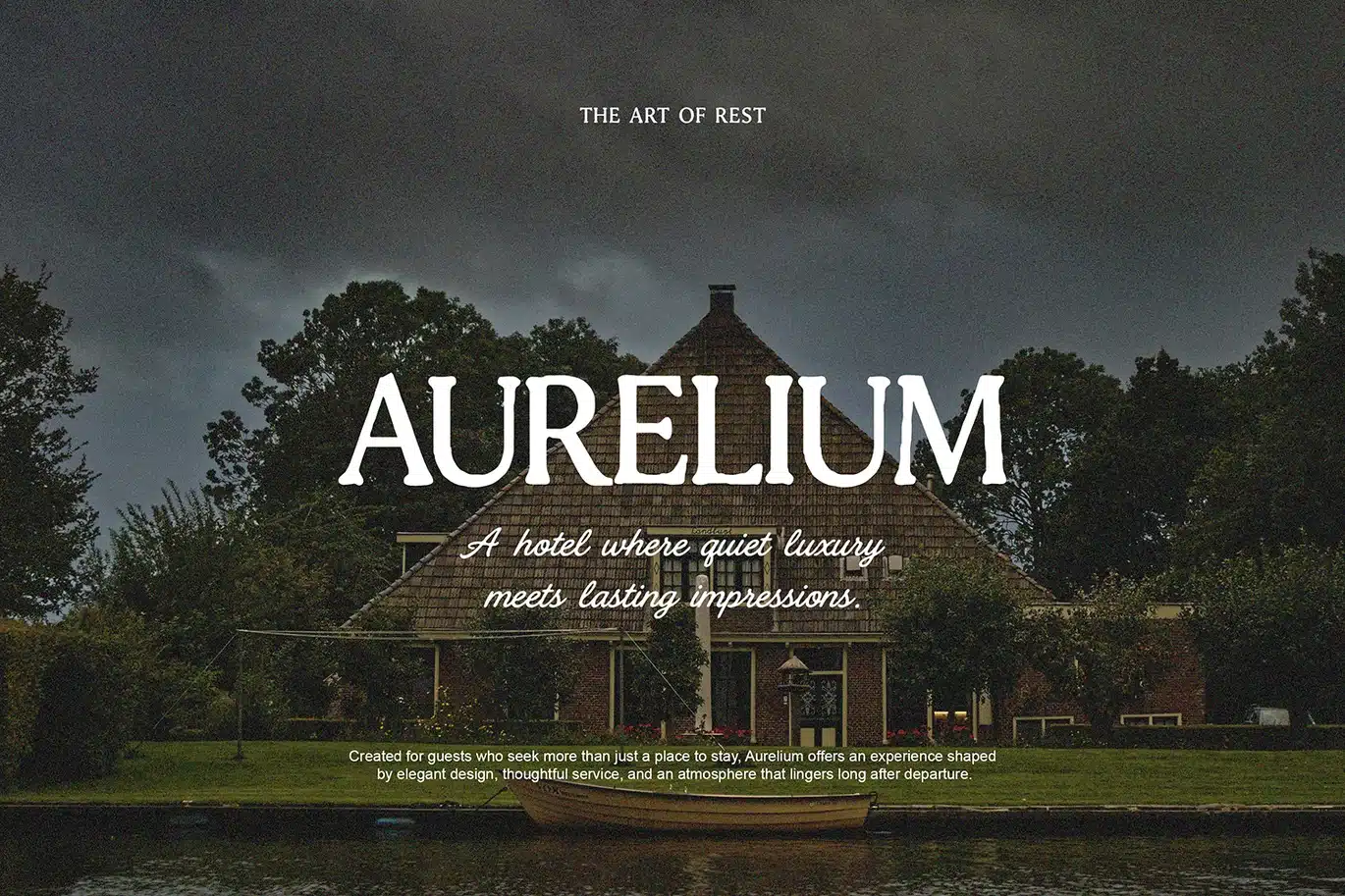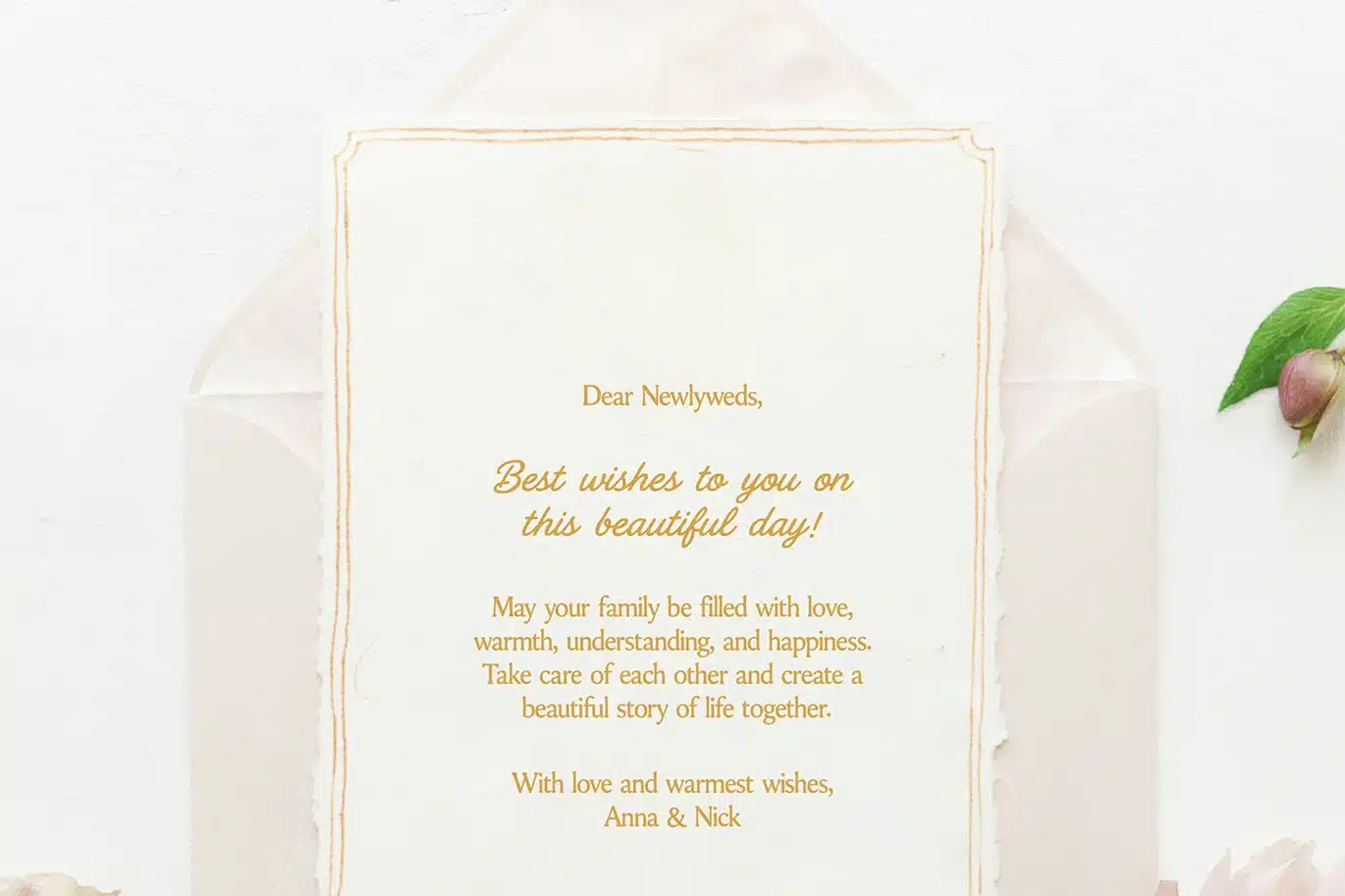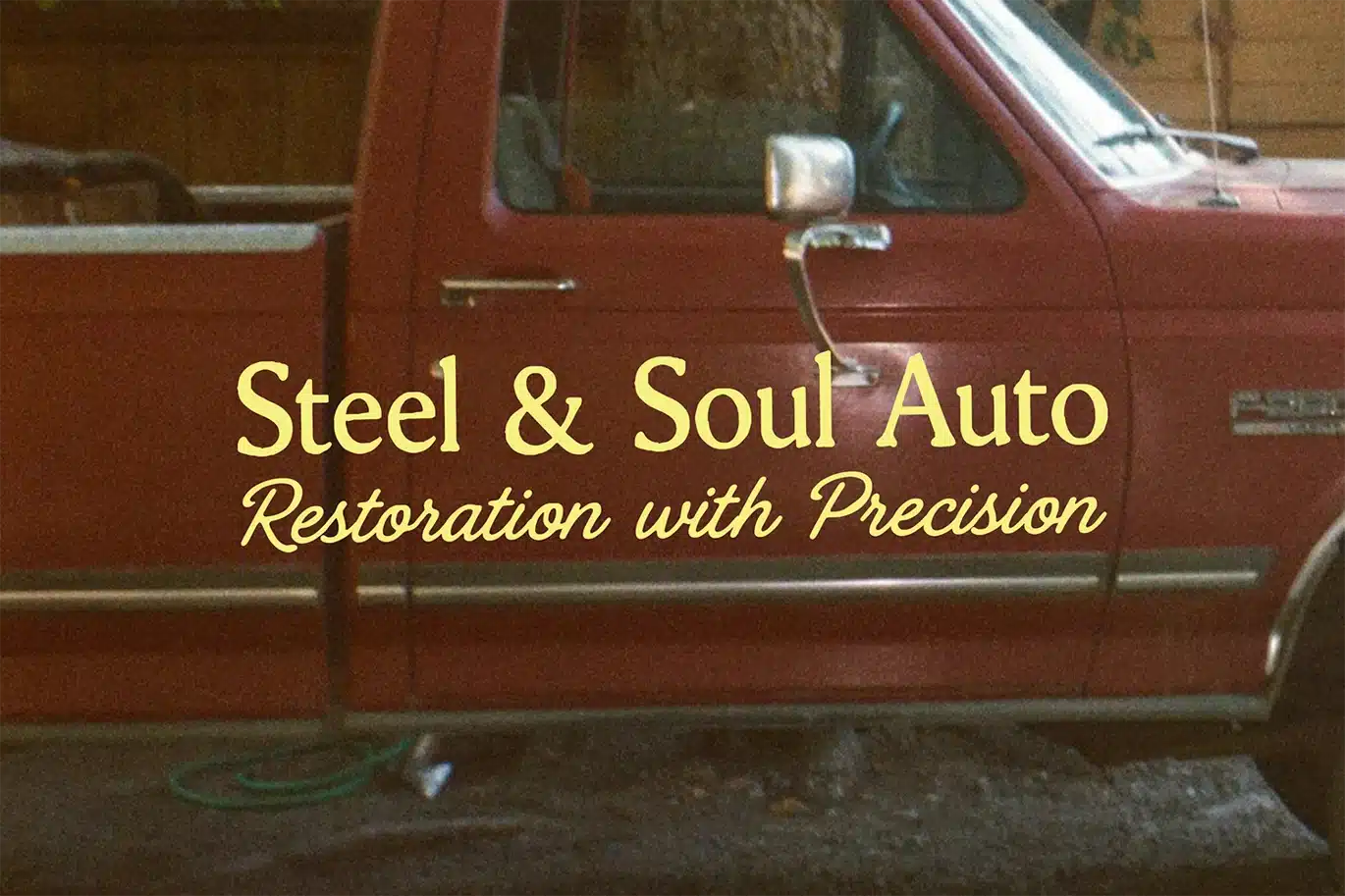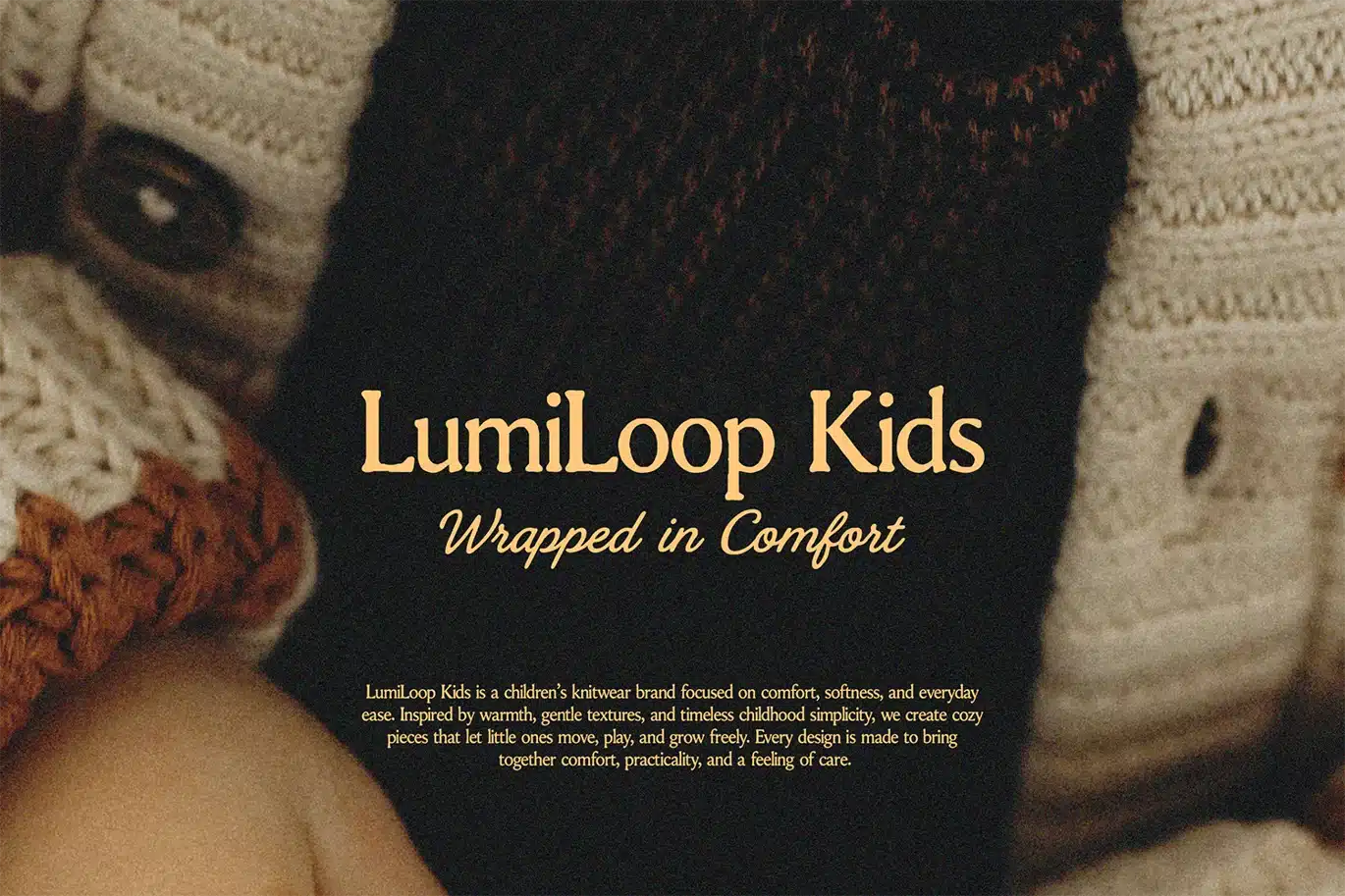
Serif Script Font Duo
European Farmhouse is a beautiful serif and script font duo with a timeless rustic charm. This font duo is ideal for designers, small business owners, crafters, and creatives looking for a romantic, rustic, and elegant style.
The serif adds a refined vintage look, while the script brings a soft and natural handwritten feel. Together they create a versatile font combination for both modern rustic and classic European-inspired projects.